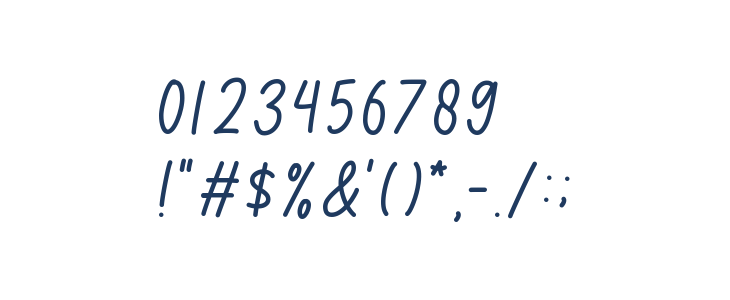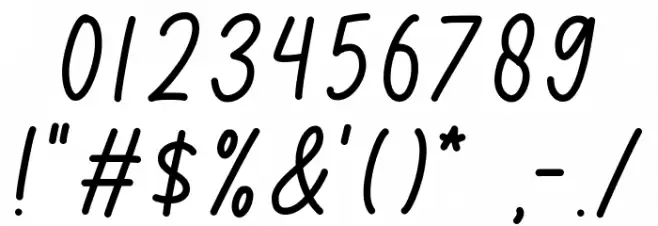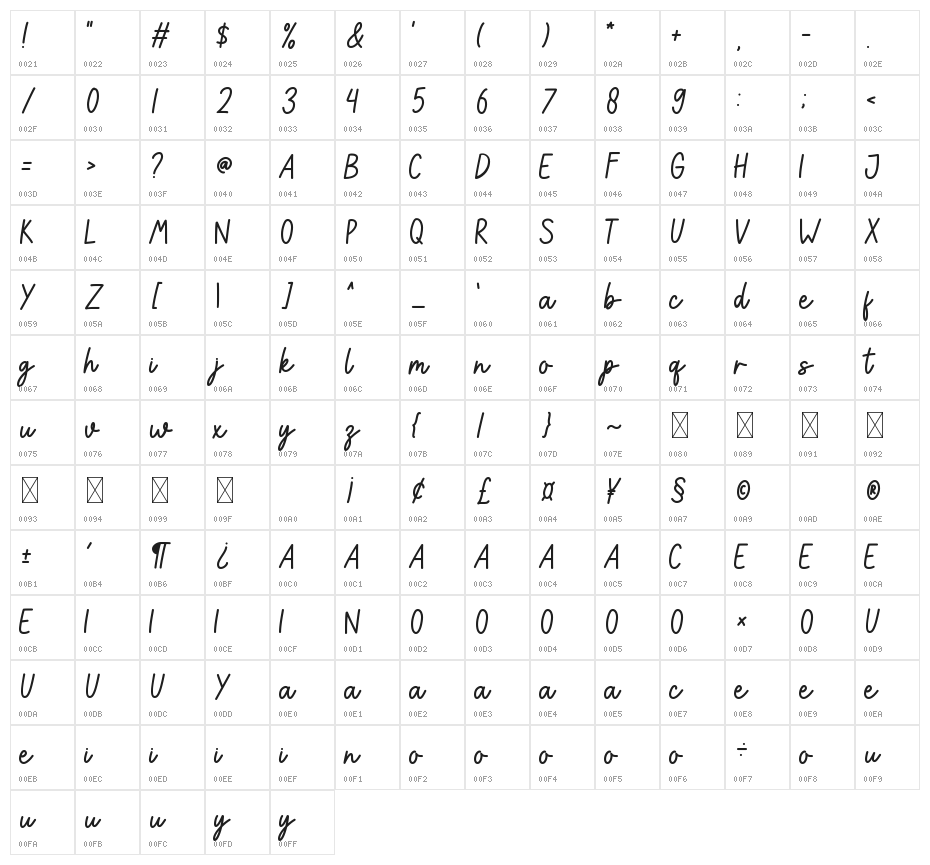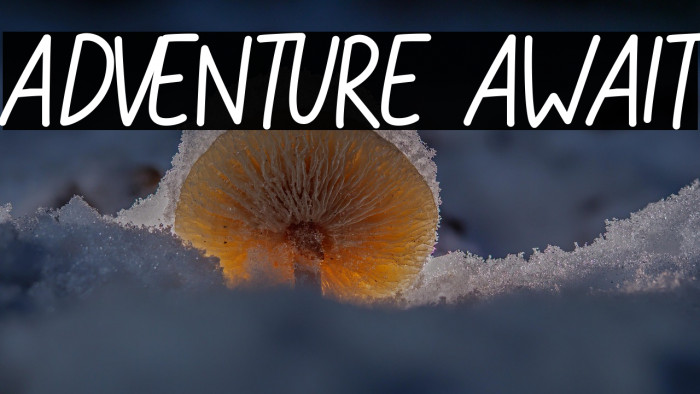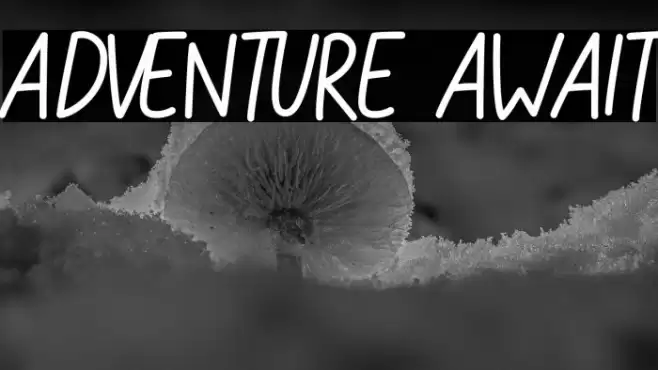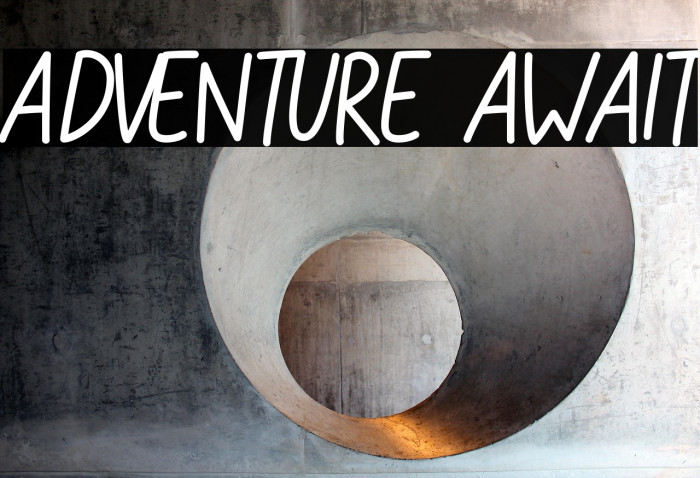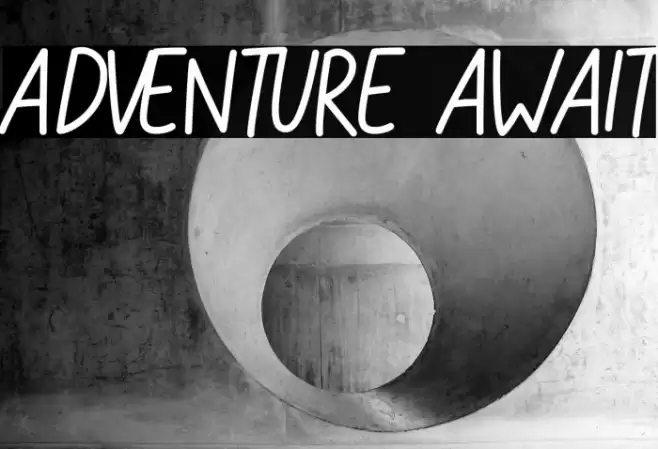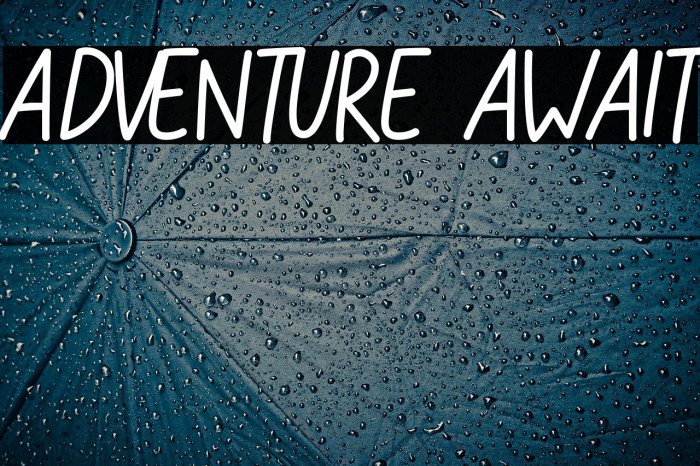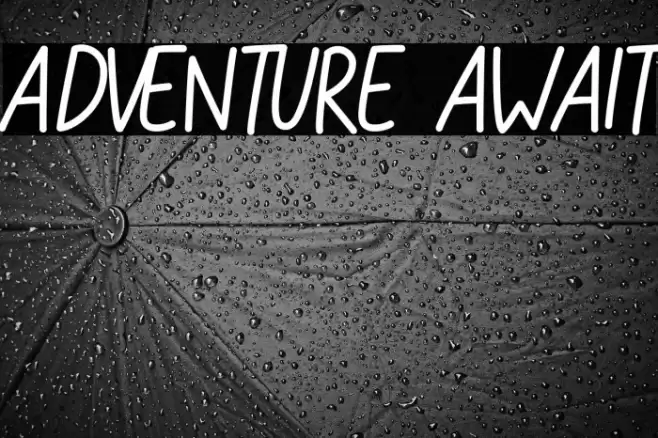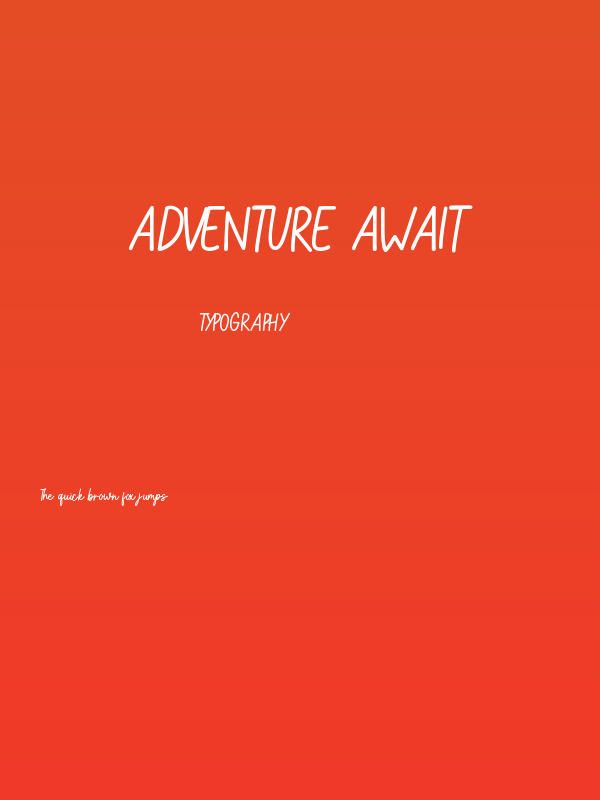
ADVENTURE AWAIT Font
ADVENTURE AWAIT Description
This font features a playful and casual handwritten style, characterized by its smooth, flowing lines and slightly irregular letterforms. The uppercase letters are tall and slightly narrow, while the lowercase letters maintain a consistent height, giving the font a cohesive look. The numbers and special characters are designed to match the overall style, with rounded edges and a friendly appearance. This font's informal and approachable aesthetic makes it ideal for projects that require a personal touch.
| Use Case | Headlines, Informal text, Personal projects |
| Proposed Projects | Ideal for greeting cards, invitations, personal branding, and social media graphics. |